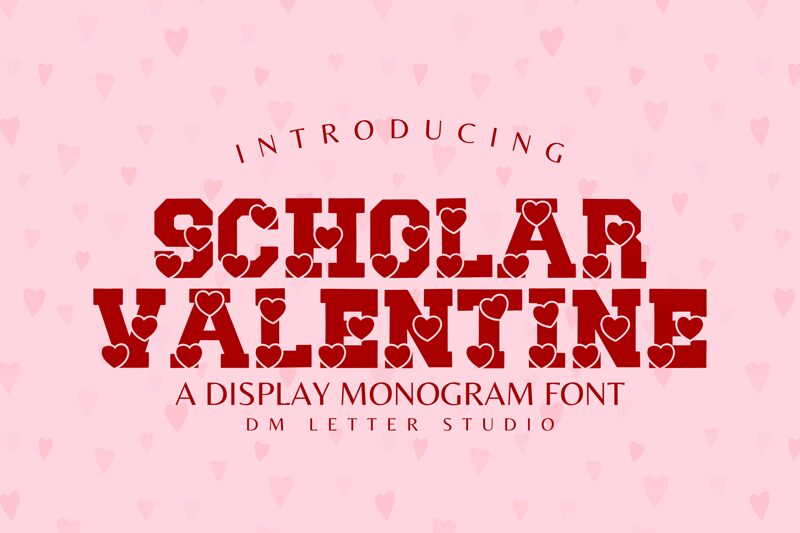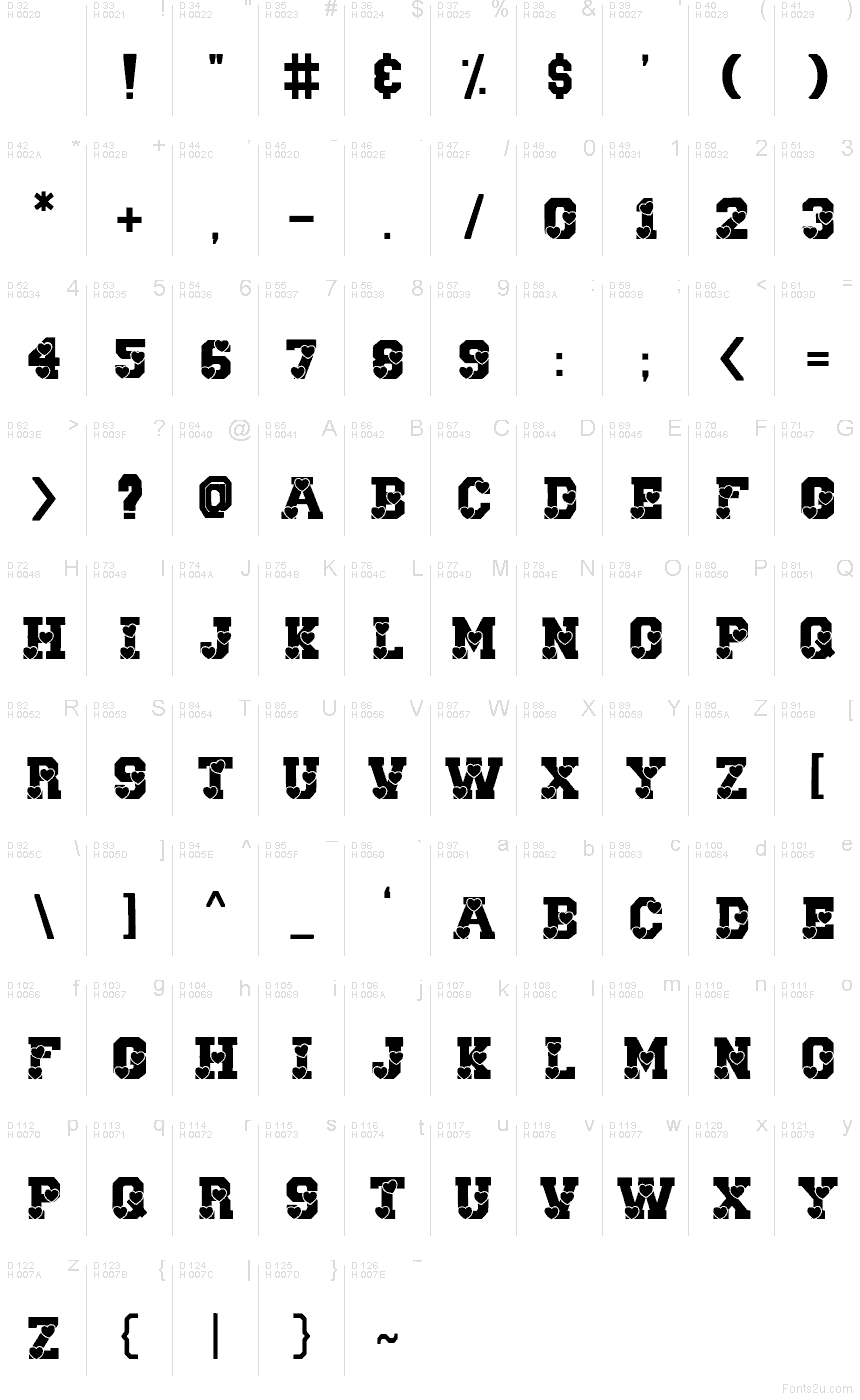
Scholar Valentine font by DM Letter Studio - Dimas Prasetyo is a free decorative holiday typeface for all things Valentine’s Day. Chunky, schoolbook-style letters are packed with tiny hearts, arrows, and doodles that feel like they were drawn in the margins of a love note. The bold shapes read clearly from a distance, while the playful inner details reward a closer look, giving your layouts a fun, crafty charm.
Using Scholar Valentine, you can instantly theme classroom handouts, kids’ posters, party invitations, greeting cards, treat-bag labels, and social media graphics without extra illustrations. This free font shines at large sizes where its heart-filled texture really pops; pair it with a clean sans serif for body text so the decorative letters stay the main attraction.